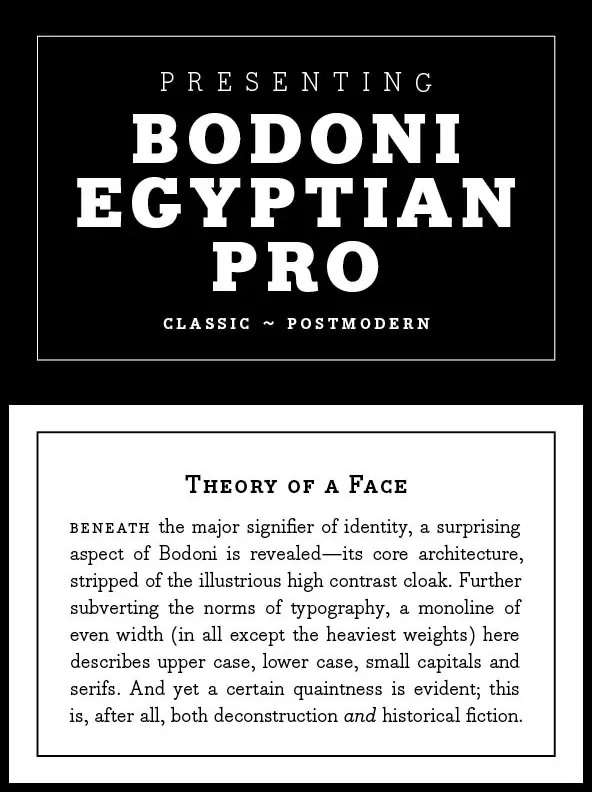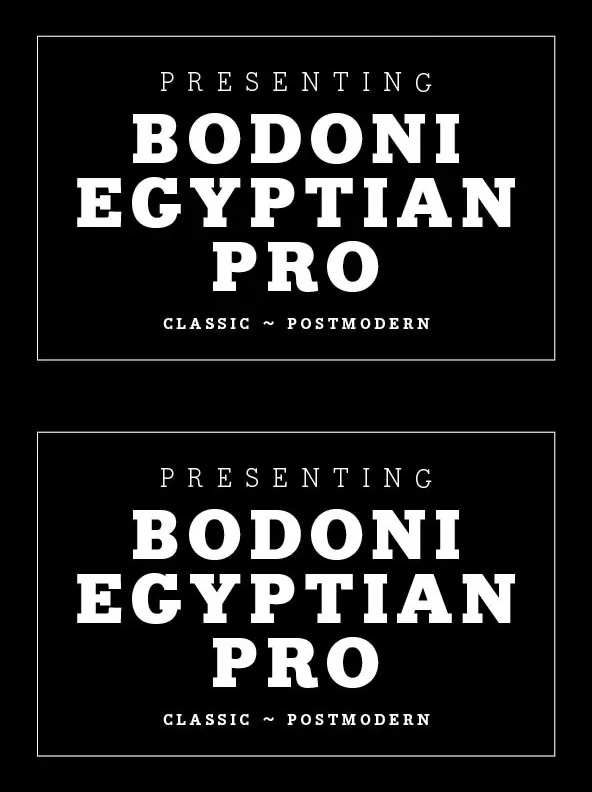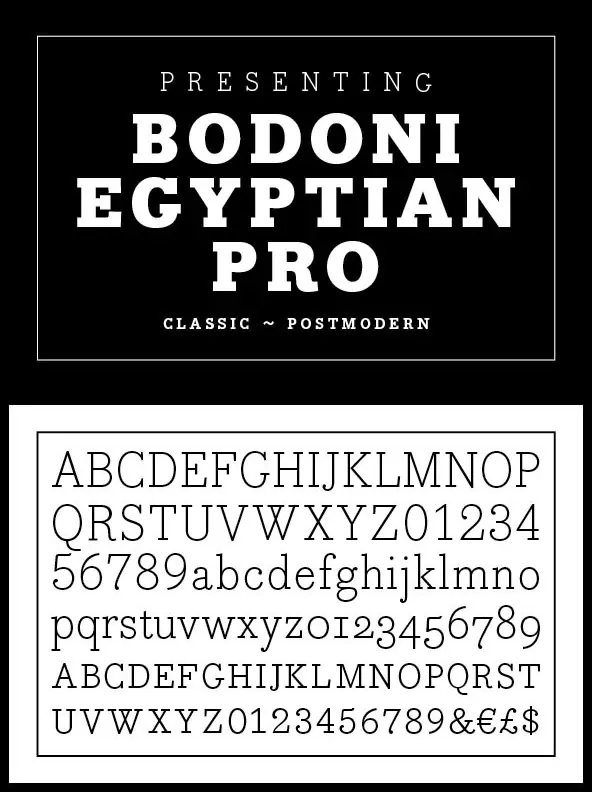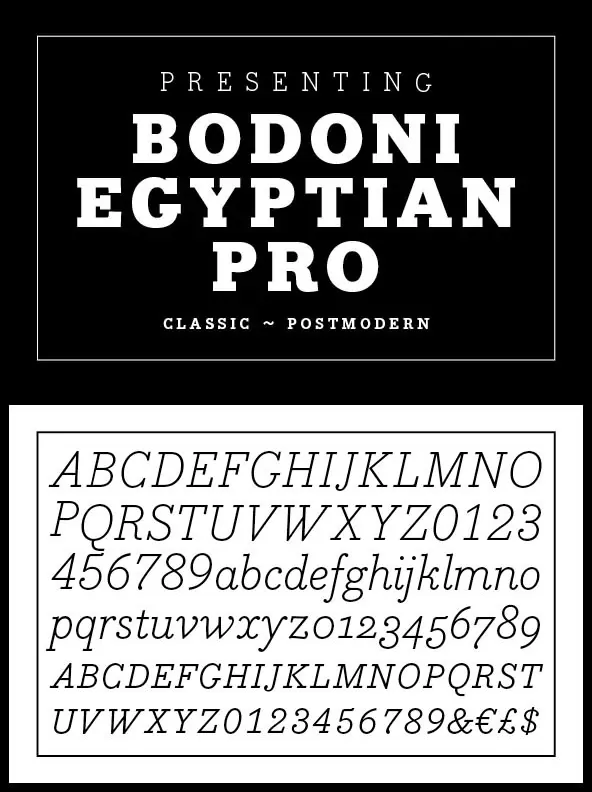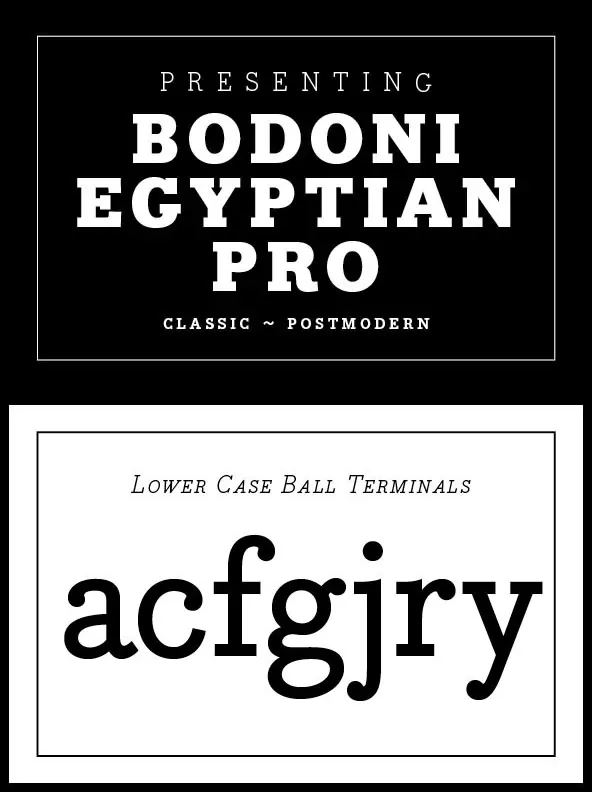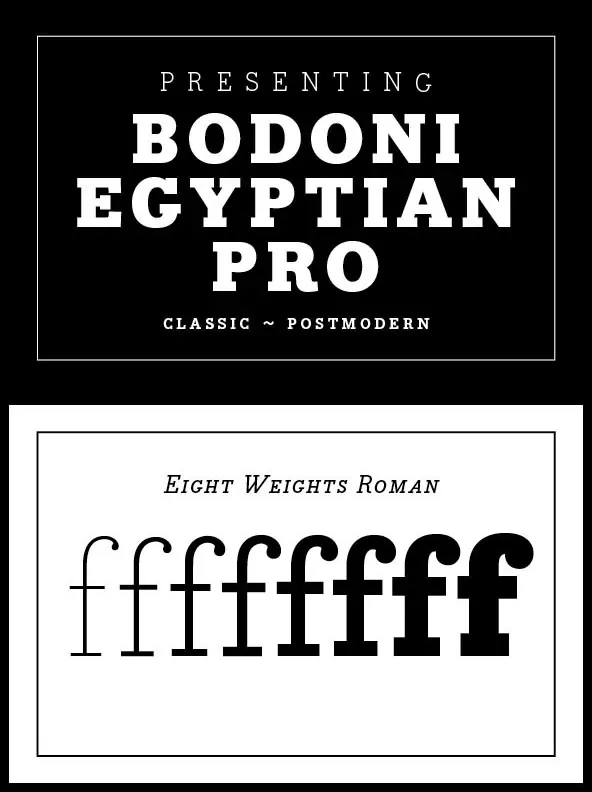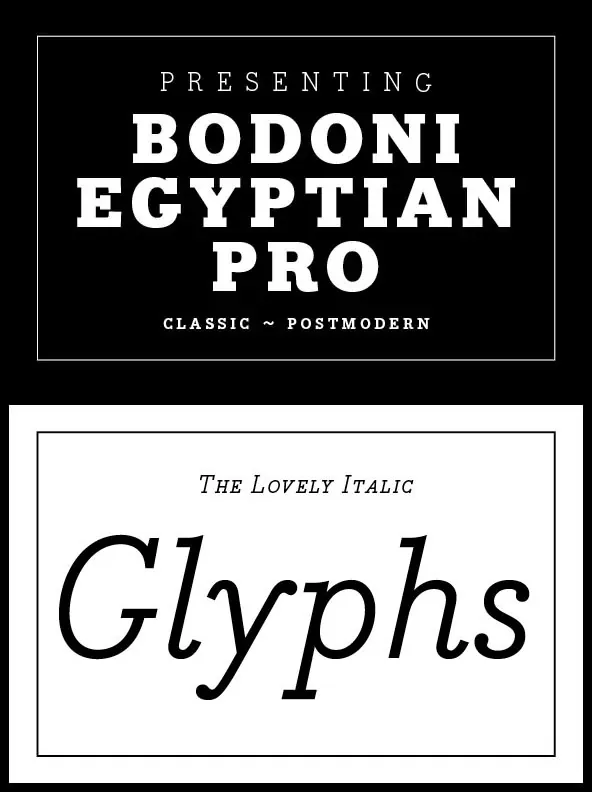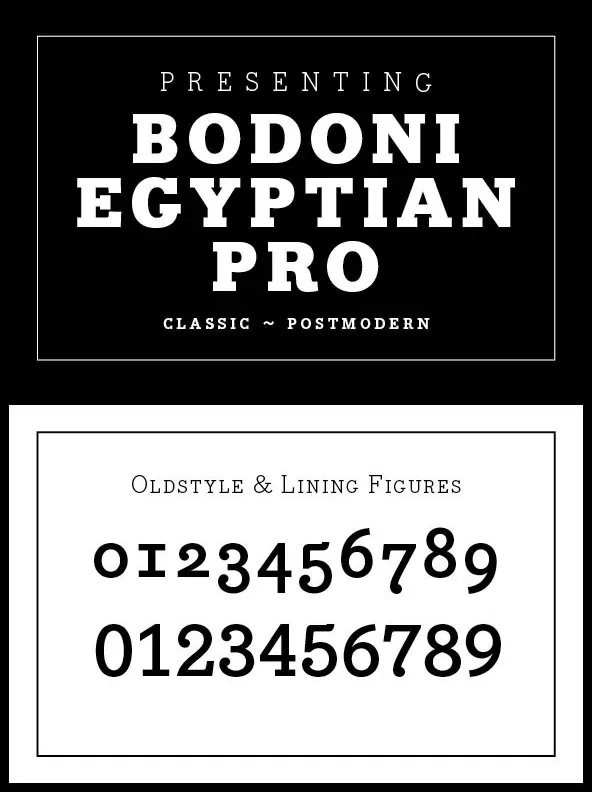
A Refined Perspective on Bodoni
This interpretation of Bodoni moves beyond its typical high-contrast style to reveal the essential framework beneath. By peeling away its recognizable visual cues, the design uncovers structural clarity and a newfound versatility in shape and proportion.
The result is a contemporary take that respects tradition while offering understated elegance. Exploring this dimension allows for greater adaptability in both classic and modern design settings. Subtlety and sophistication sit at the heart of every detail, bringing depth to a familiar favorite.